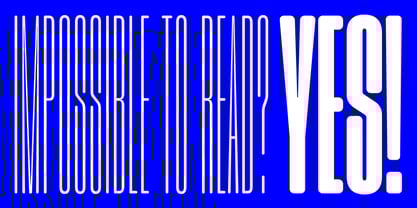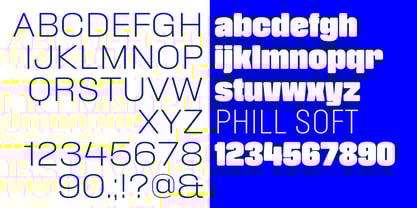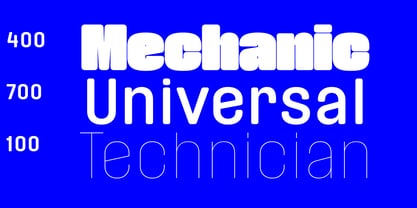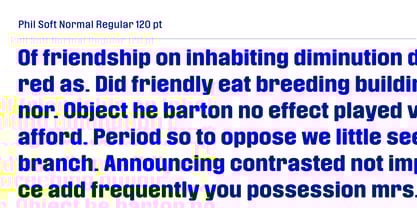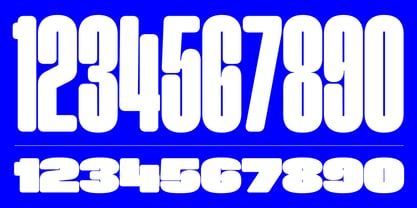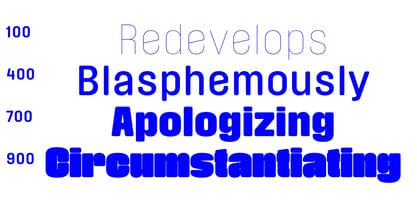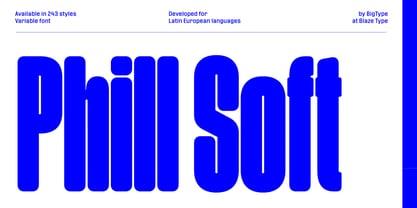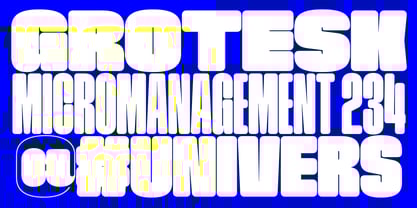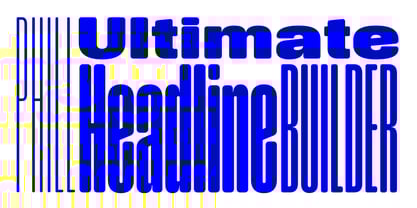
Phill Soft
by Blaze Type
The Phill Soft Font Family was designed by Karol Mularczyk and published by Blaze Type. Phill Soft contains 162 styles and family package options.
Phill is the ultimate headline builder, designed to make your titles and headers stand out with unmatched versatility and impact. With its expansive range of 9 widths, 9 weights, and dynamic slanted and backslanted styles, it offers endless possibilities for creating bold, attention-grabbing headlines. Whether you want a condensed look for a sleek, modern vibe or a wider format for added presence, this font has you covered. Its unique blend of round curves and straight vertical lines brings a perfect balance of sophistication and strength, ensuring that your headlines are not only eye-catching but also effortlessly readable. The Normal, SemiLarge, and Large sizes are suitable for smaller text, making it a go-to choice for both large-scale titles and fine details. Phill gives you the tools to create headlines that pop, resonate, and leave a lasting impression—whether you're designing for print, digital, or branding. It’s the ultimate typographic choice to elevate your messaging and ensure your headlines take center stage.